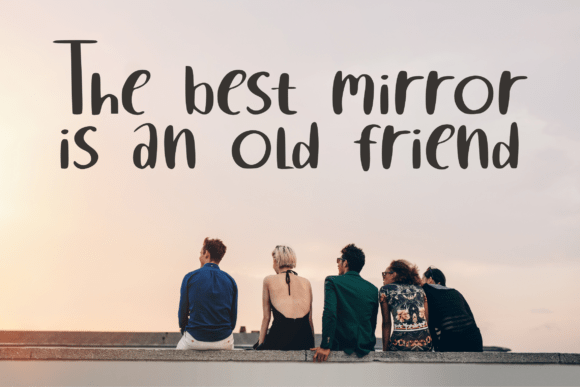
Simp Friends Font: Elevate Your Designs with a Whimsical Touch
In the realm of digital design, the right typography can make all the difference in captivating your audience and conveying your message effectively. Introducing Simp Friends Font, a charming typeface that seamlessly blends contemporary design with handwritten finesse. This delightful font is thoughtfully crafted to infuse a casual, friendly essence into your creative endeavors, making it the perfect choice for various design applications.
What Makes Simp Friends Font Special?
- Whimsical Design: Simp Friends Font draws inspiration from delightful doodles and cherished moments of camaraderie, giving it a unique and playful personality.
- Smooth Strokes: The font boasts smooth strokes that exude warmth and allure, making it perfect for designs that require a touch of elegance and sophistication.
- Hand-Drawn Style: With its naturally hand-drawn style, Simp Friends Font adds a personal touch to your designs, making them more relatable and engaging.
- Readability: The font ensures that readability and style effortlessly blend, making it suitable for a wide range of design applications.
Perfect for Various Design Applications
Simp Friends Font is an incredibly versatile typeface that can be used in various design projects, including:
- Social Media Graphics: Add a touch of whimsy and friendliness to your social media graphics, making them more engaging and shareable.
- Lifestyle Blogs: Infuse charm and personality into your lifestyle blog, making it more relatable and appealing to your audience.
- YouTube Thumbnails: Make your YouTube thumbnails more engaging and attention-grabbing with Simp Friends Font.
- Playful Branding: Use Simp Friends Font to create playful and memorable branding that resonates with your target audience.
- Stickers: Add a touch of whimsy and charm to your stickers, making them more appealing and collectible.
The Benefits of Using Simp Friends Font
By incorporating Simp Friends Font into your designs, you can:
- Elevate Your Brand: Give your brand a unique and playful personality that sets it apart from the competition.
- Connect with Your Audience: Create designs that are relatable, engaging, and memorable, helping you build a stronger connection with your audience.
- Stand Out: Use Simp Friends Font to create designs that stand out in a crowded digital landscape.
- Save Time: With its smooth strokes and hand-drawn style, Simp Friends Font saves you time and effort in creating custom typography.
Tips and Tricks for Using Simp Friends Font
To get the most out of Simp Friends Font, consider the following tips and tricks:
- Experiment with Colors: Simp Friends Font looks great in a variety of colors, so don’t be afraid to experiment and find the perfect hue for your design.
- Mix and Match: Combine Simp Friends Font with other typography to create visually appealing and engaging designs.
- Pay Attention to Spacing: Make sure to adjust the spacing between letters and words to ensure optimal readability.
- Add Texture: Consider adding texture to your design to give it a more organic and hand-drawn feel.
Simp Friends Font is a unique and versatile typeface that can elevate your designs and help you connect with your audience. With its whimsical design, smooth strokes, and hand-drawn style, this font is perfect for various design applications, from social media graphics to playful branding. By incorporating Simp Friends Font into your designs, you can add a touch of inviting charm and character that sets you apart from the competition.